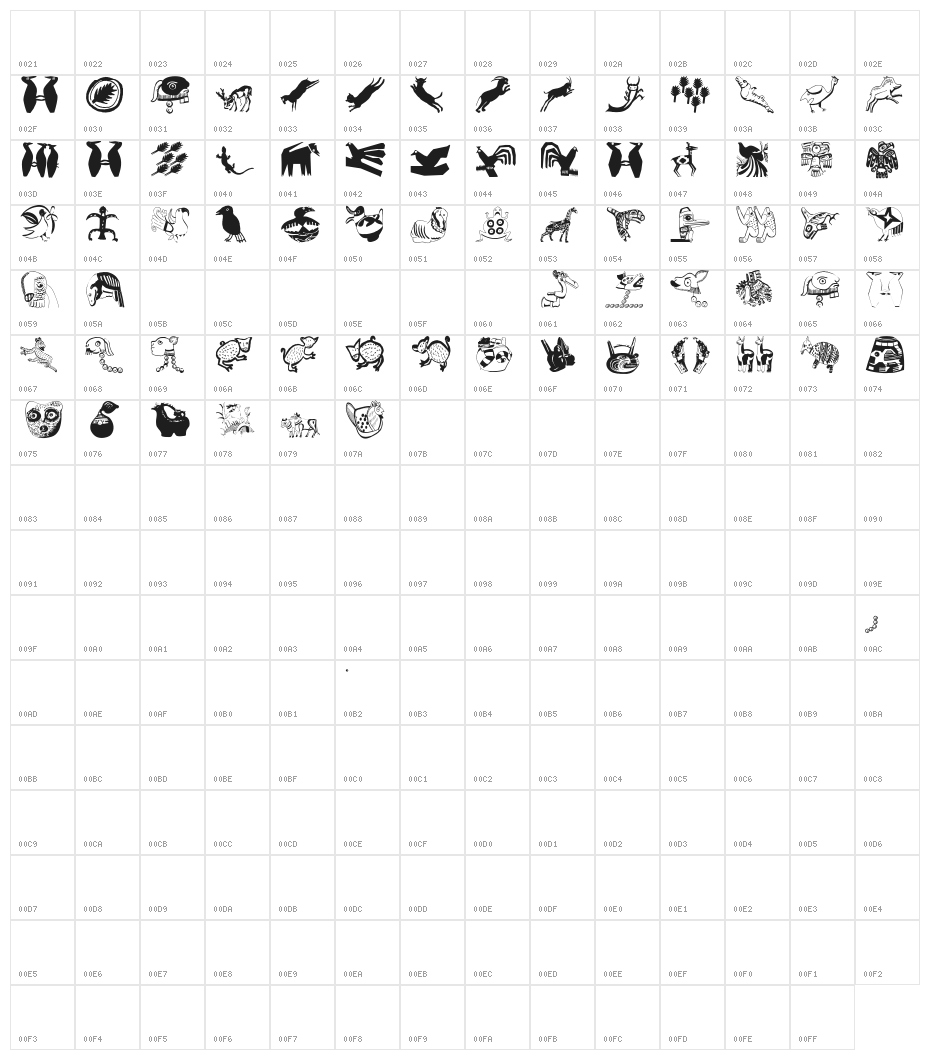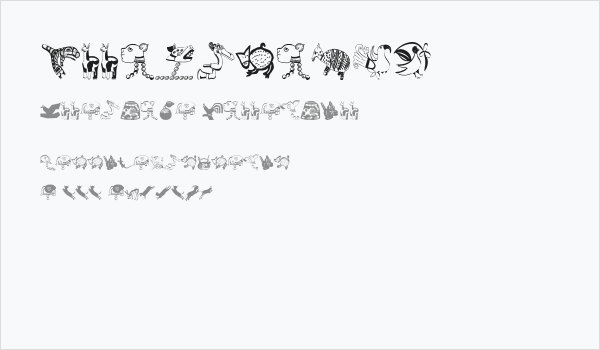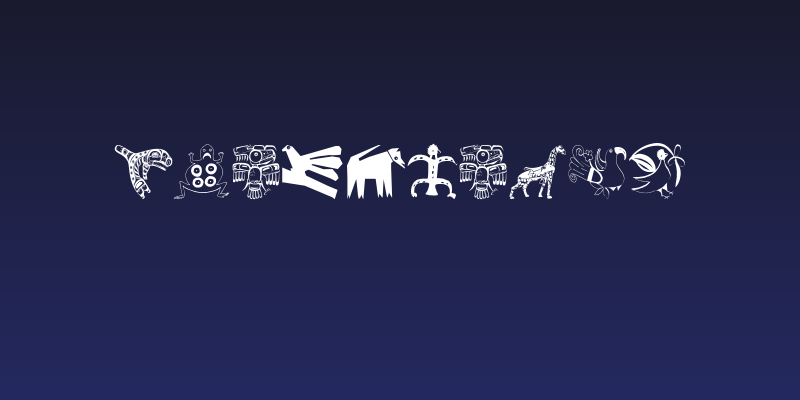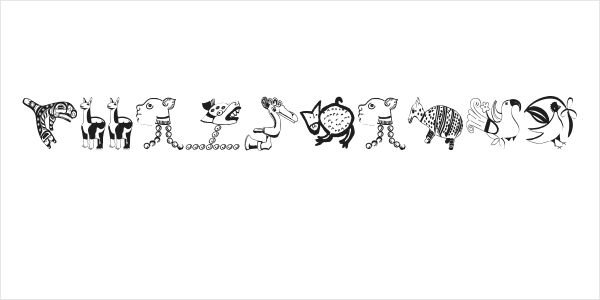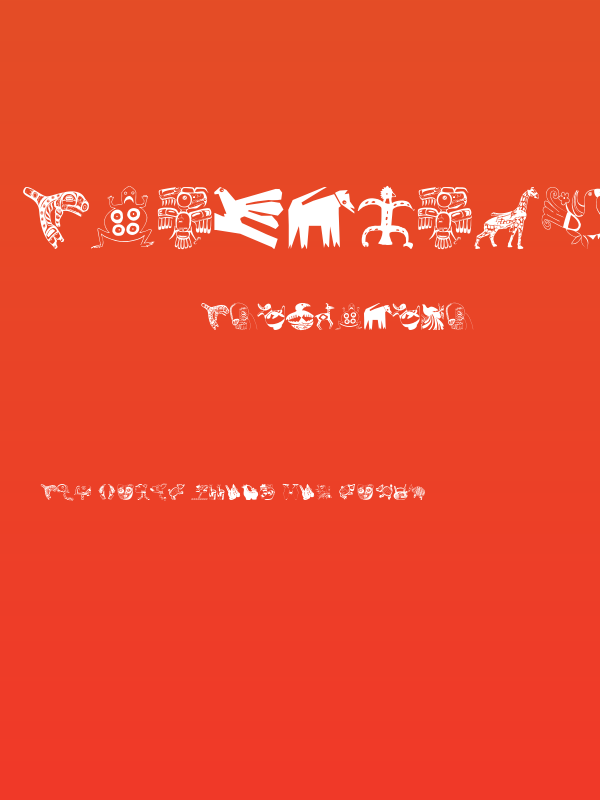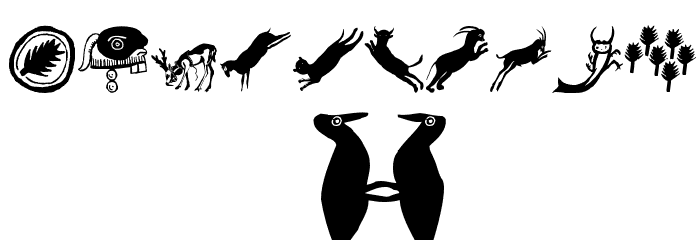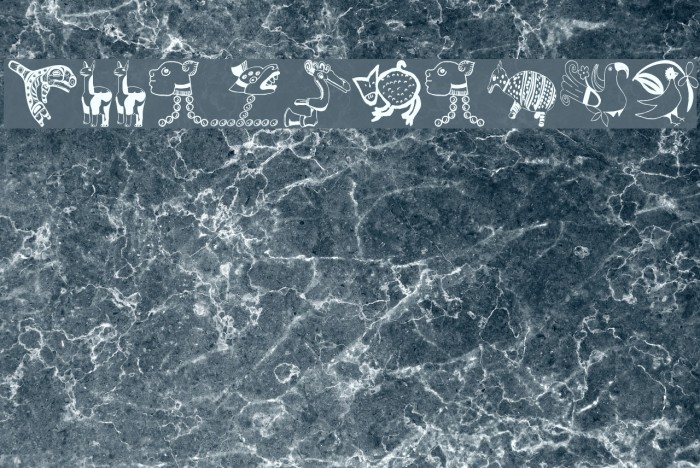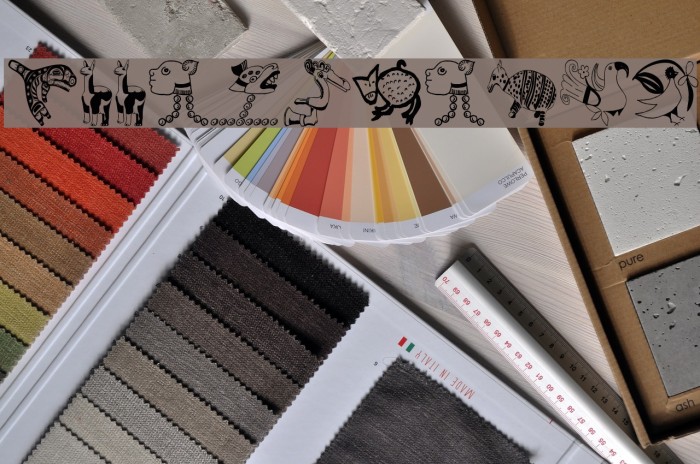
TribalisM-K Font
TribalisM-K Description
This font is a highly decorative and artistic collection of symbols inspired by tribal and indigenous art. Each character is a unique illustration, featuring a variety of animals, abstract shapes, and cultural motifs. The designs are bold and intricate, with a strong emphasis on black and white contrast, creating a striking visual impact. The font captures a sense of history and tradition, making it ideal for projects that require a touch of cultural authenticity and artistic flair. The characters are not uniform in shape or size, adding to the eclectic and handcrafted feel of the font.
| Use Case | Logos, Posters, Artistic Designs |
| Proposed Projects | Ideal for cultural projects, artistic designs, posters, and any work requiring a tribal aesthetic. |